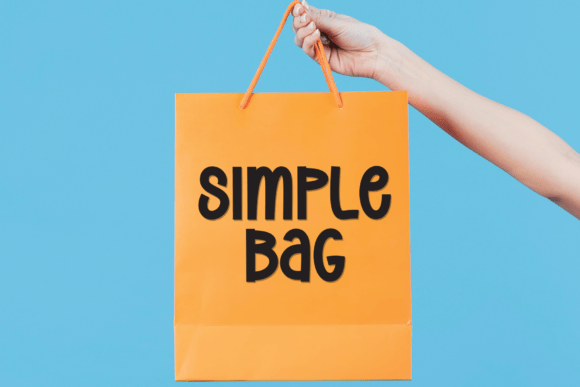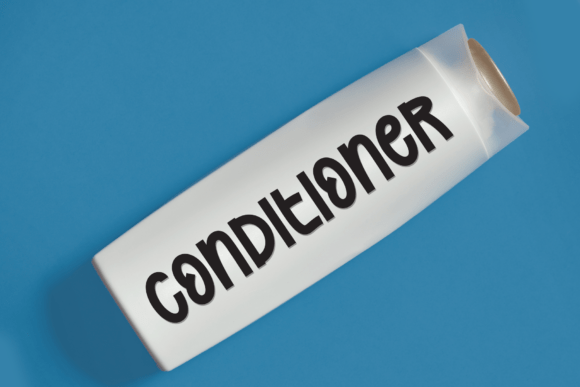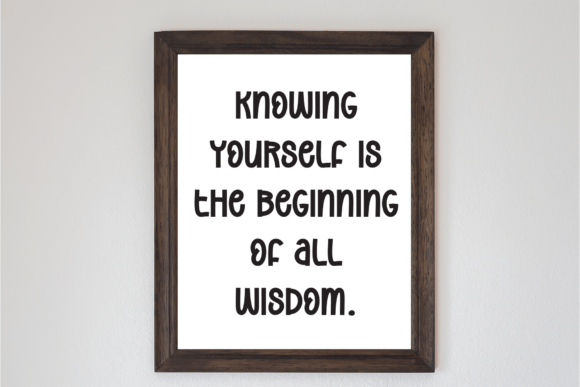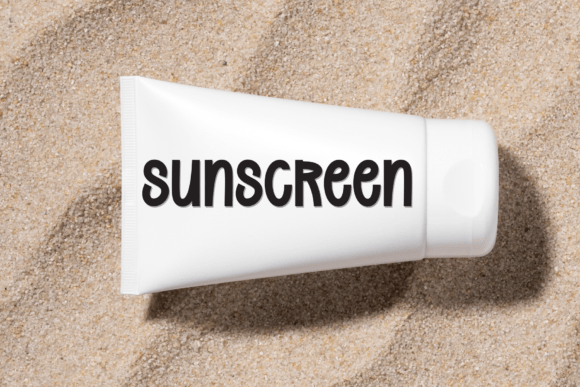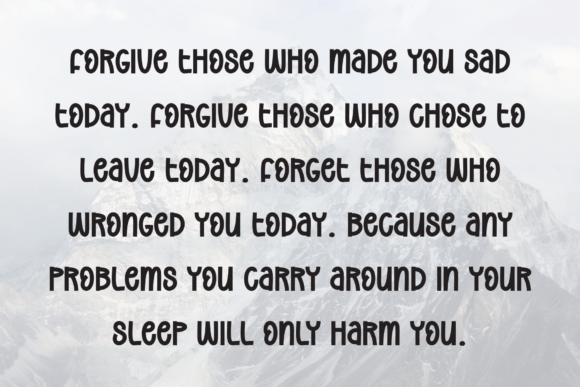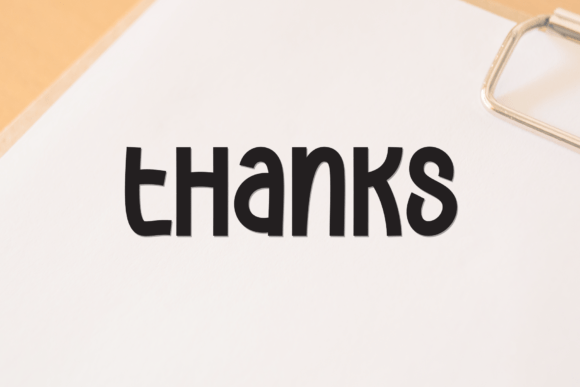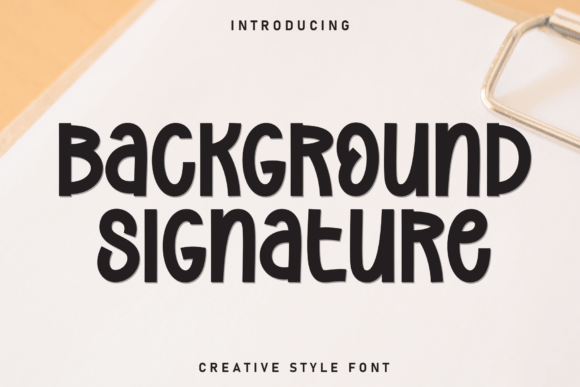
Elevate Your Brand with Background Signature Font: A Perfect Blend of Personality and Professionalism
In the world of typography, a signature font can make all the difference in establishing a brand’s identity. If you’re a creative professional, photographer, or entrepreneur looking for a unique and impactful font to elevate your brand, look no further than Background Signature. This creative display font seamlessly blends the ease of a marker script with the structure of a modern header, offering a distinctive and authentic look that’s sure to capture attention.
The Characteristics of Background Signature Font
Background Signature is characterized by its thick, confident strokes that exude a sense of professionalism and style. The font features unique character alternates that give your words an authentic, handcrafted feel, making it perfect for those who want to add a personal touch to their branding. The balanced weight and friendly rhythm of Background Signature ensure that your brand feels approachable yet established, making it an ideal choice for a wide range of applications.
One of the standout features of Background Signature is its versatility. This font works beautifully as a primary logo or as an accent for social media quotes and blog headers. Its confident and creative style makes it perfect for custom stationery, personalized gift tags, or as a striking watermark on your creative portfolio. Whether you’re looking to make a bold statement or add a subtle touch of personality to your branding, Background Signature is the perfect choice.
Pairing Options for a Sophisticated Look
To create a sophisticated, layered aesthetic, Background Signature pairs excellently with clean, thin serif fonts. This combination adds depth and visual interest to your branding, making it perfect for designers and crafters who want to create a unique and impactful look. The contrast between the thick, confident strokes of Background Signature and the clean lines of a serif font creates a beautiful visual harmony that’s sure to elevate your brand.
Why Choose Background Signature Font?
So, why choose Background Signature font for your branding needs? Here are just a few reasons why this font stands out:
• Unique and Authentic Look: Background Signature offers a distinctive and authentic look that’s sure to capture attention and set your brand apart.
• Legibility and Impact: This font is designed to be highly legible, even at large sizes, making it perfect for headlines, titles, and branding applications where impact is key.
• Versatility: Background Signature works beautifully in a wide range of applications, from custom stationery to social media quotes and blog headers.
• Ease of Use: This font is easy to use and pairs well with a variety of other fonts, making it perfect for designers and crafters of all skill levels.
Applications for Background Signature Font
Background Signature font is perfect for a wide range of applications, including:
• Branding and Logo Design: Use Background Signature as a primary logo or as an accent to create a unique and impactful brand identity.
• Custom Stationery: Add a personal touch to your custom stationery with Background Signature, perfect for business cards, letterheads, and more.
• Social Media Quotes and Blog Headers: Use Background Signature to add a touch of personality and style to your social media quotes and blog headers.
• Personalized Gift Tags: Create unique and personalized gift tags with Background Signature, perfect for special occasions and events.
• Creative Portfolio: Use Background Signature as a striking watermark on your creative portfolio to add a touch of professionalism and style.
In conclusion, Background Signature font is a versatile and impactful font that’s perfect for creative professionals, photographers, and entrepreneurs who want to add a personal and professional touch to their branding. With its unique character alternates, thick confident strokes, and balanced weight, Background Signature is sure to elevate your brand and make it stand out. Whether you’re looking to create a bold statement or add a subtle touch of personality to your branding, Background Signature is the perfect choice.